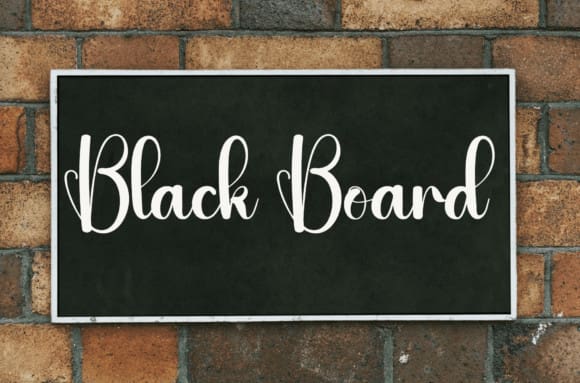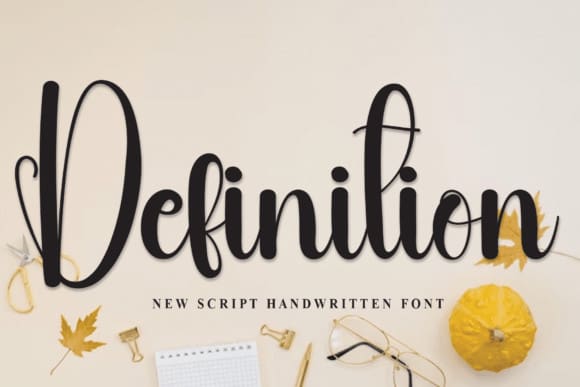
Definition Script Font
Definition Script Font is a sweet and friendly handwritten font. Fresh and neat, this font is ideal for writing wedding invitations, cards, or any other design that might need a fun touch!